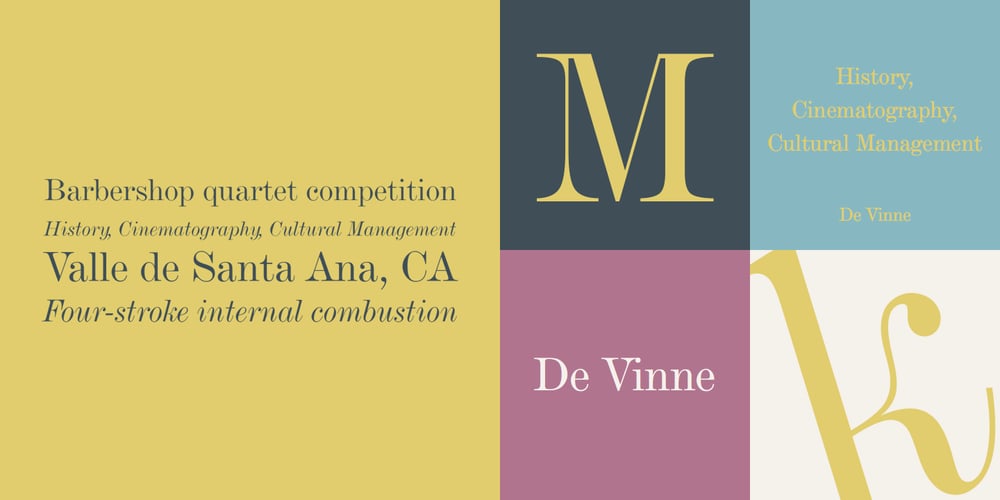
De Vinne Font Family was designed by Gustav F. Schroeder and published by Bitstream. De Vinne contains 4 styles and family package options. This revival of the Bruce Foundry’s No. 11 is typical of the nineteenth century types derived from the work of Didot and Bodoni; the face remains popular with lawyers and government printers. In fact, Theodore Low De Vinne opposed this kind of design as hard to print and read; he had Century designed to replace it.